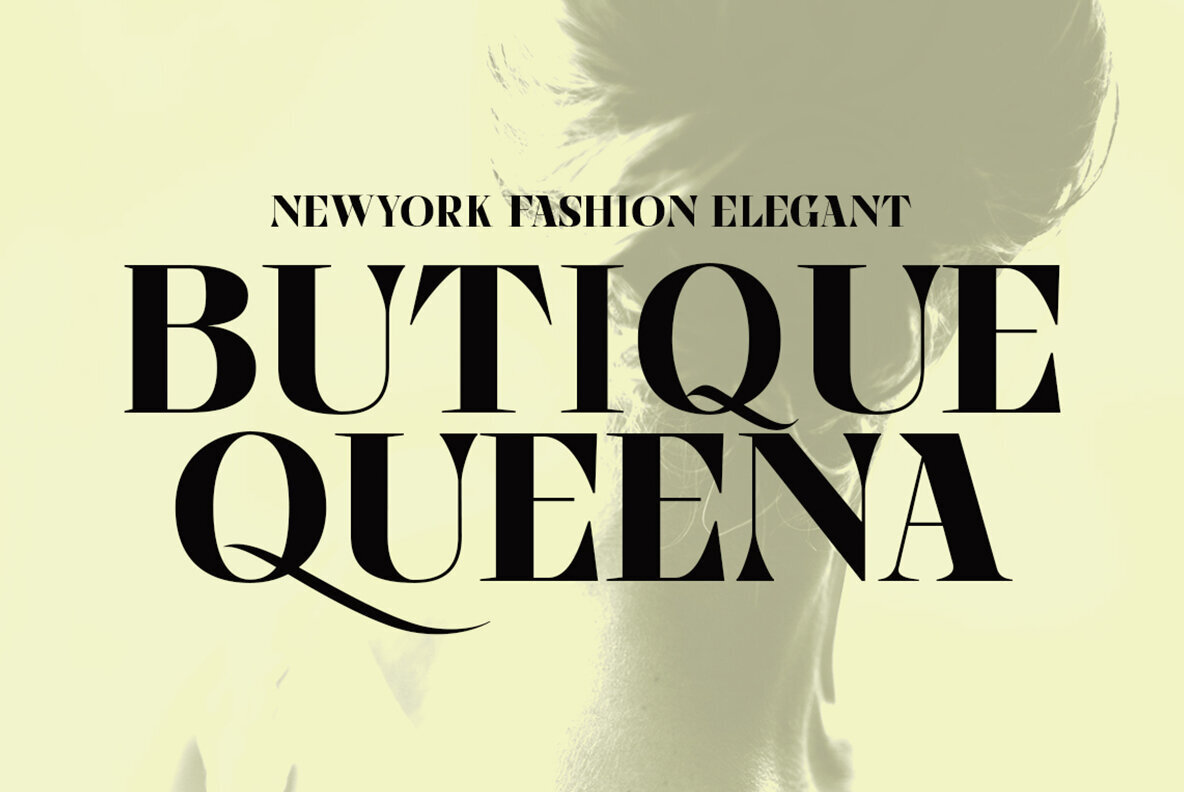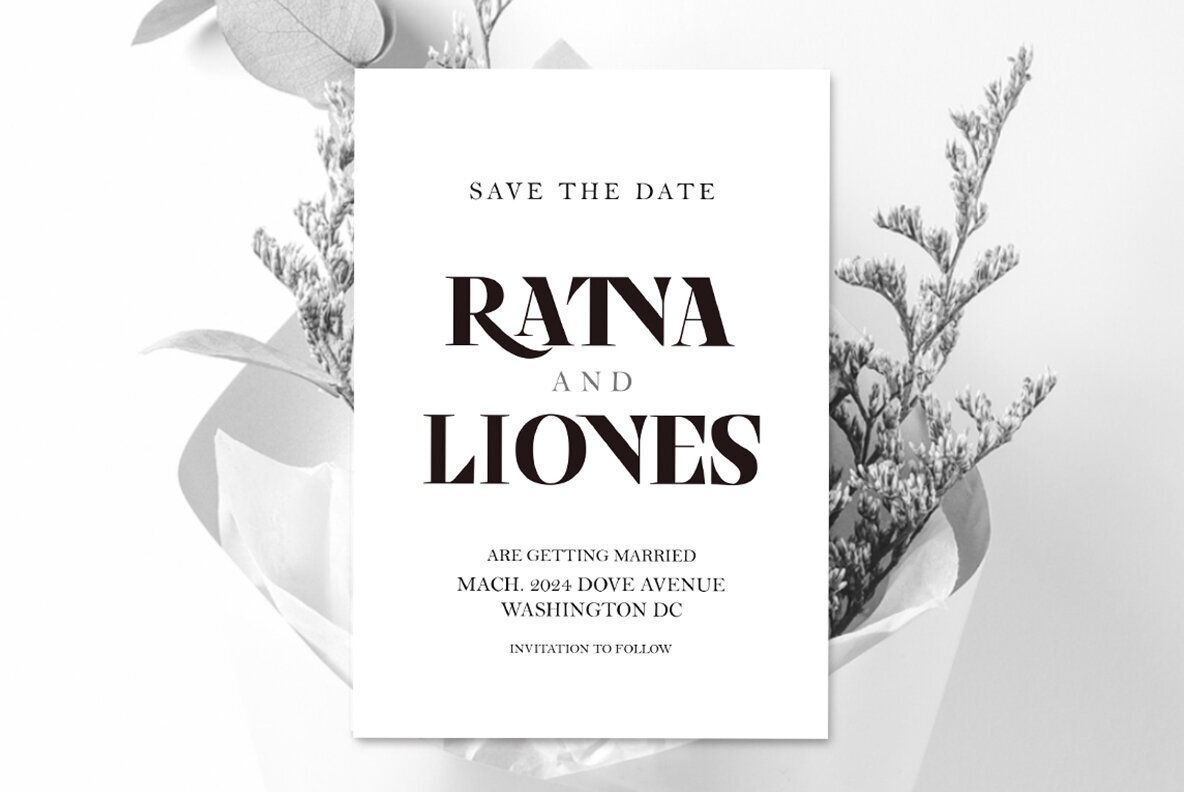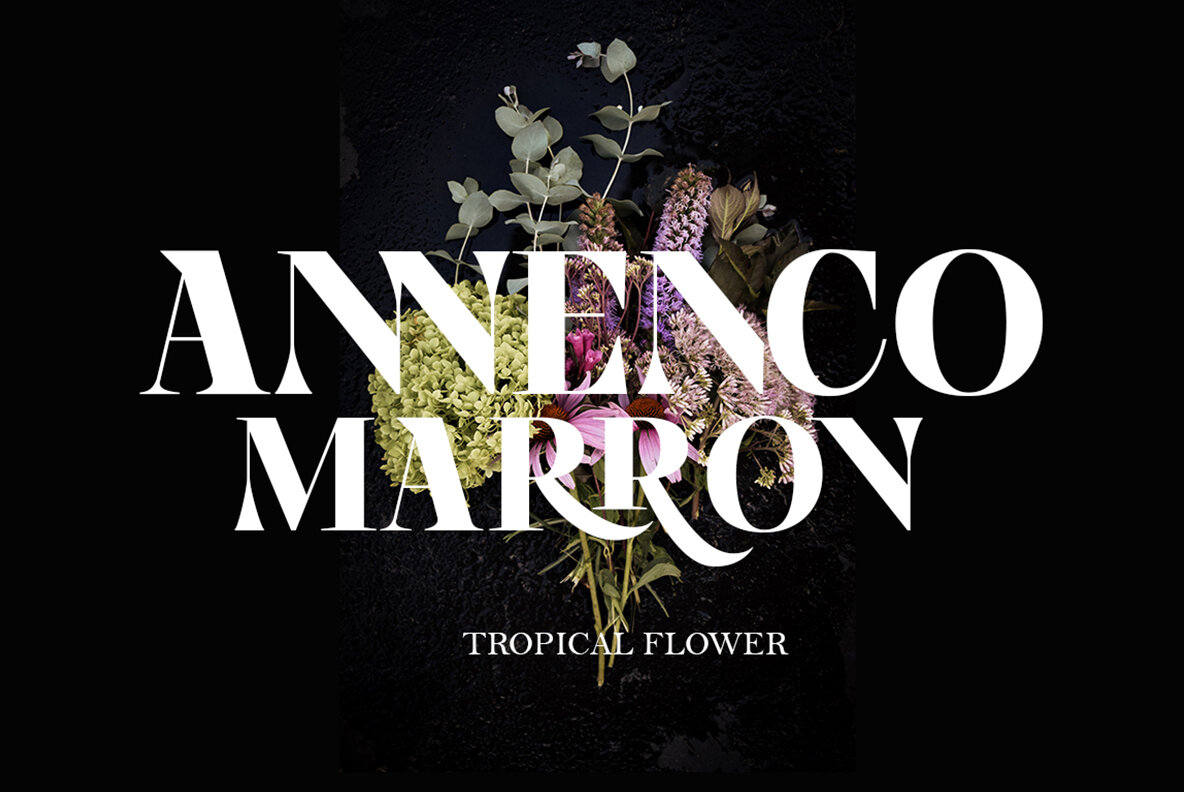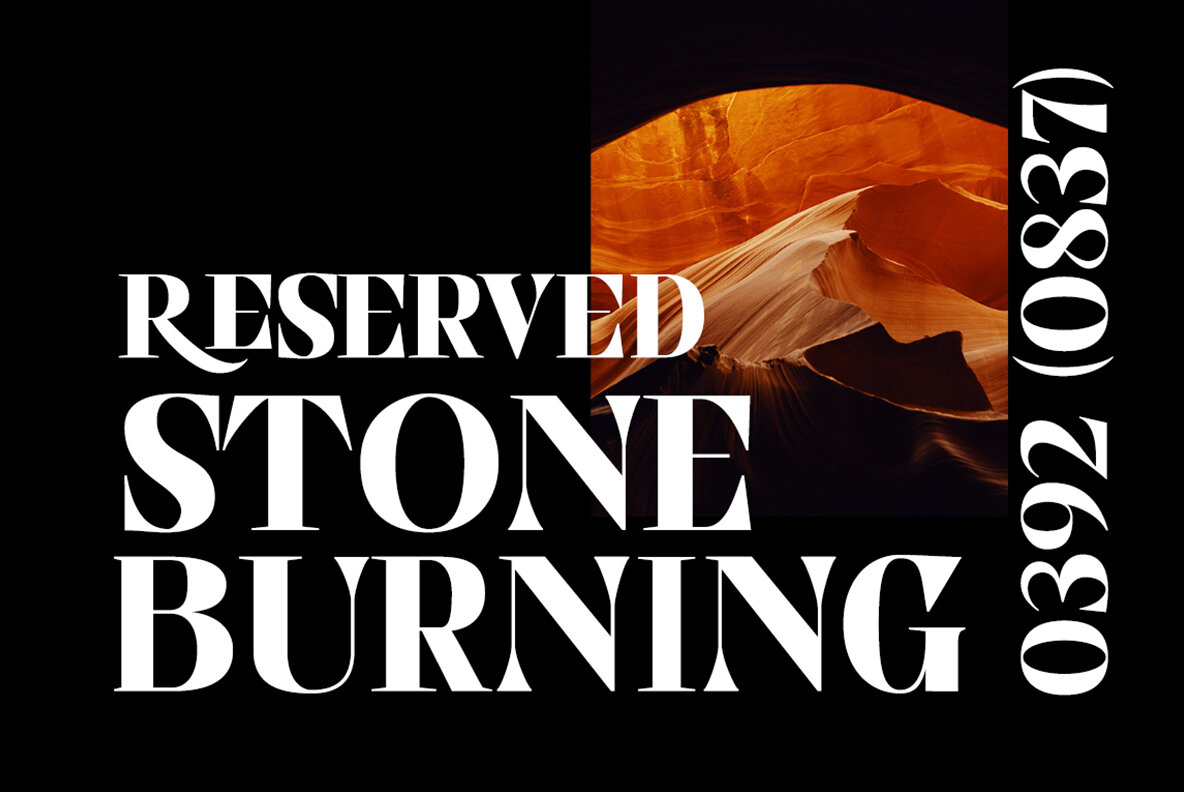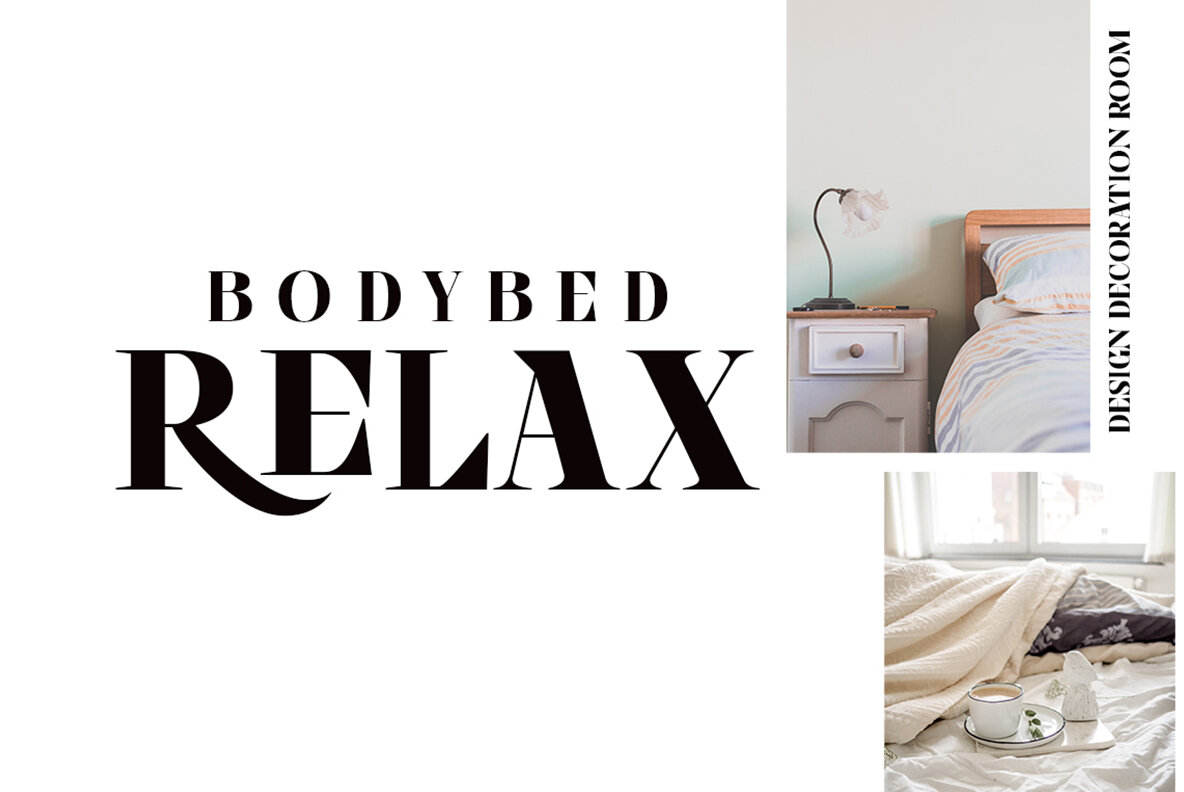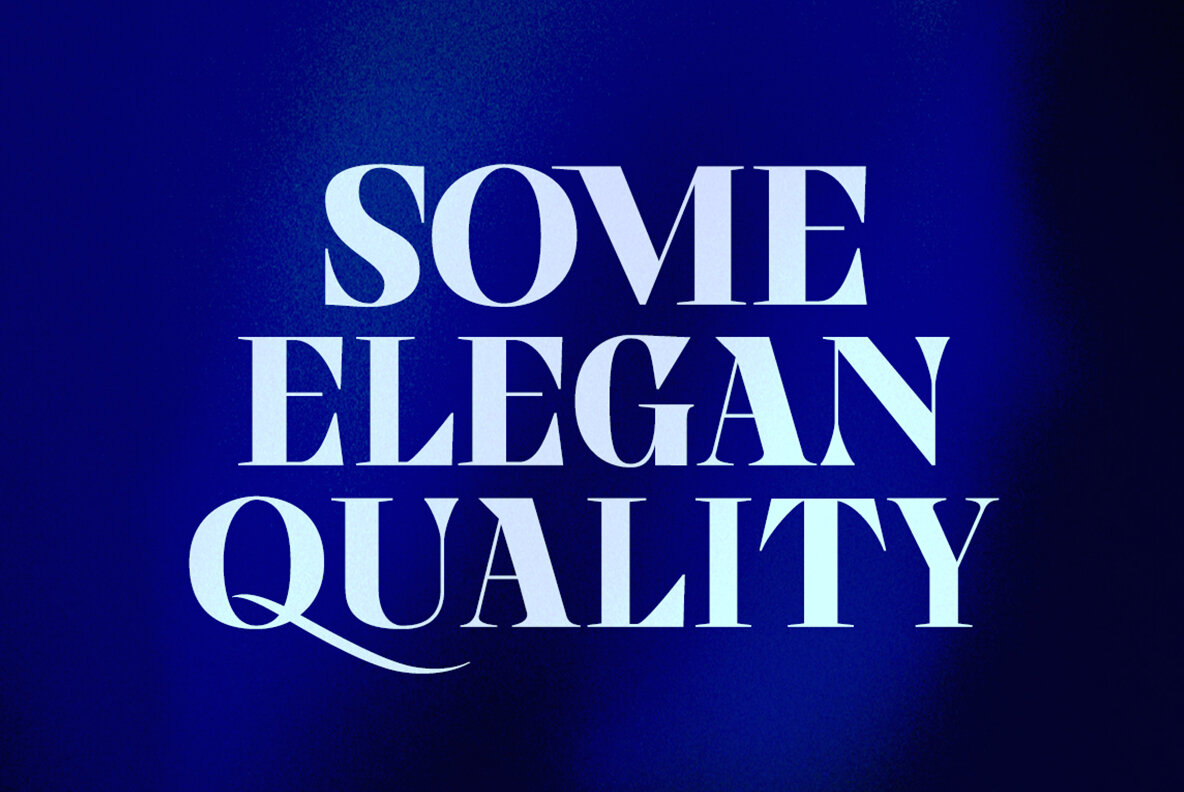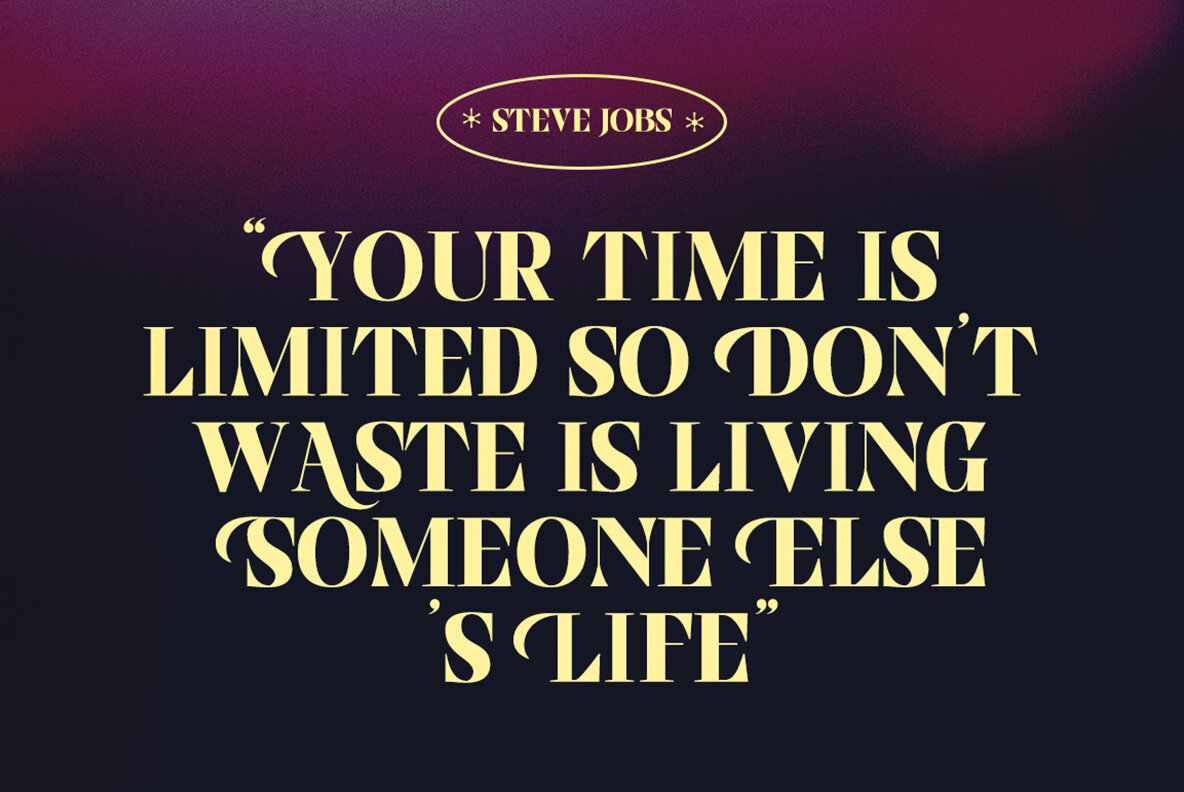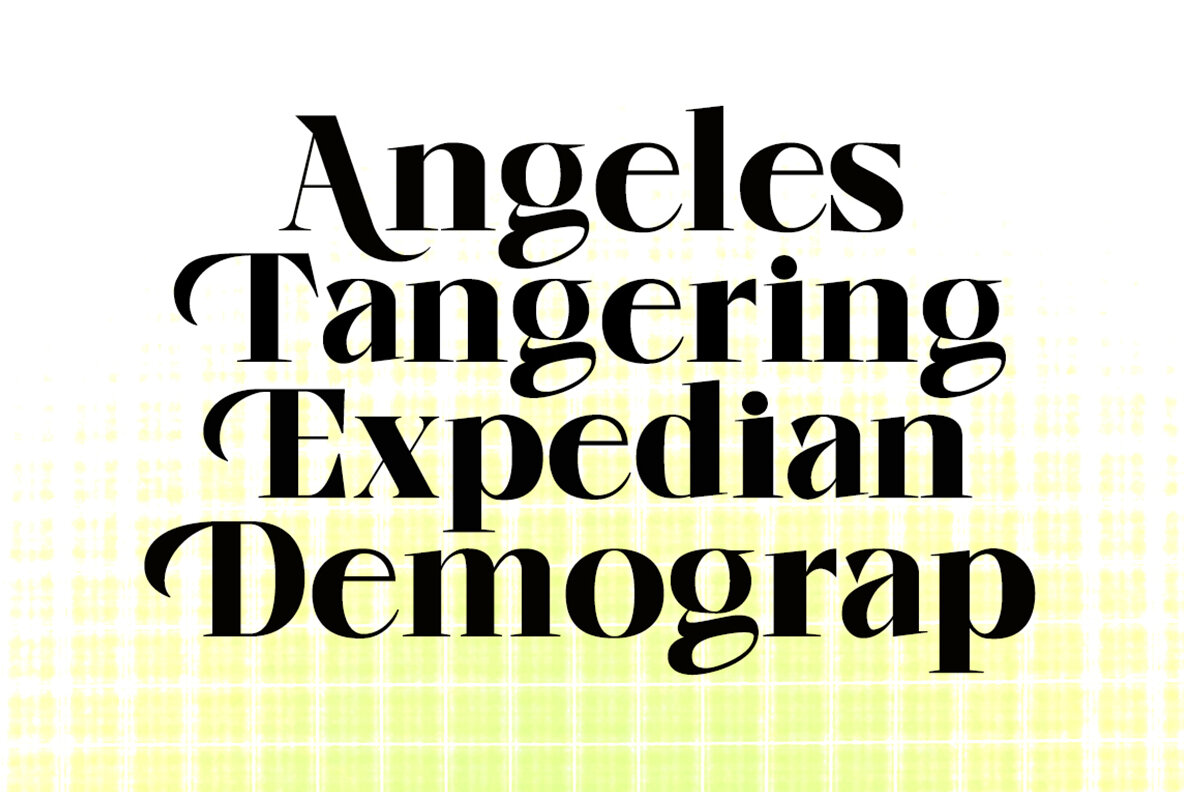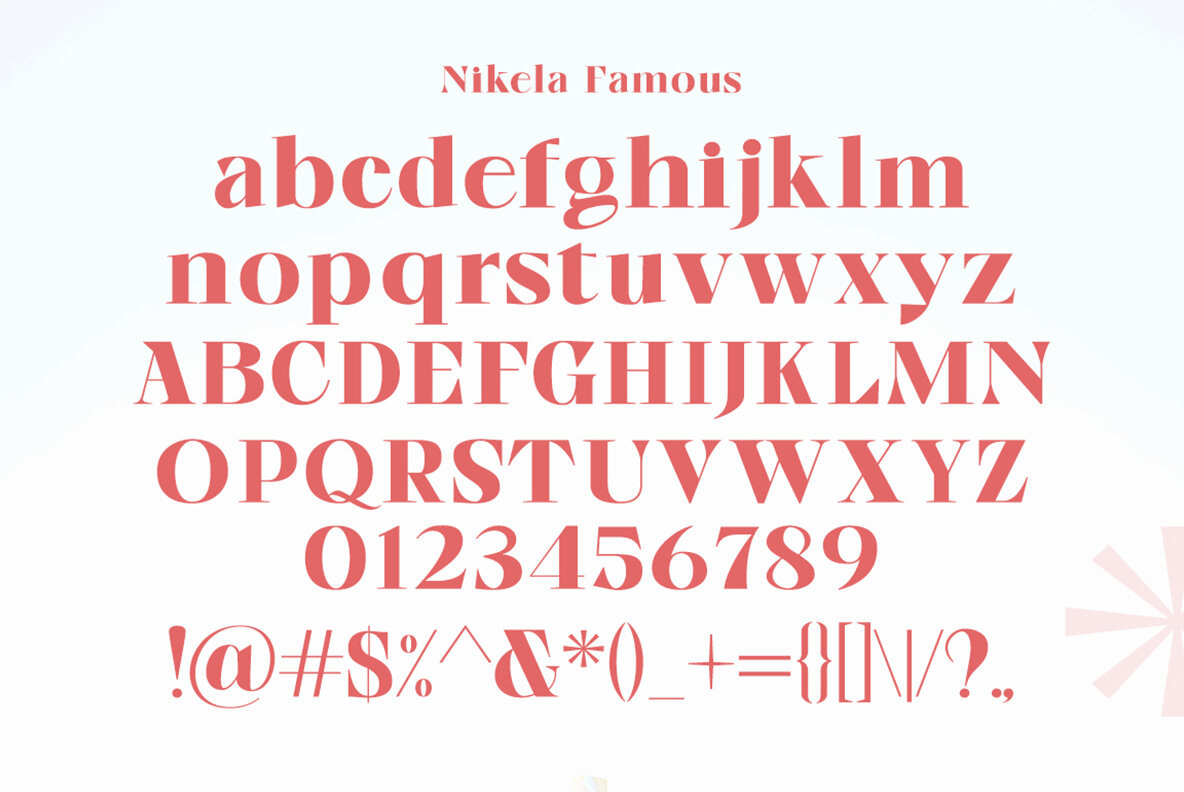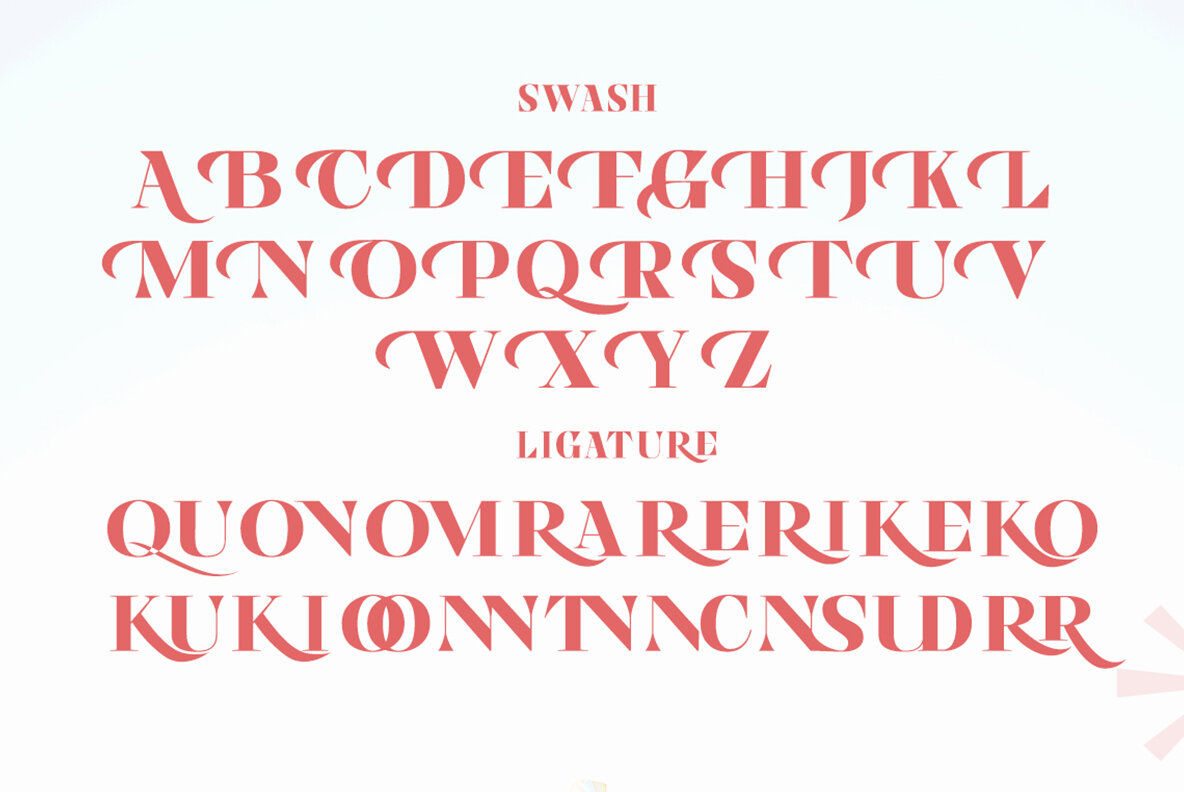
Nikela Famous Font
Nikela Famous
Nikela Famous is a versatile font featuring a clean and sleek shape. Its strong design creates a sense of order and harmony among letters, making it ideal for various applications such as Instagram visuals, posters, web design, magazines, logos, and product branding.Nikela Famous: A Versatile and Sleek Typeface for Modern Designs